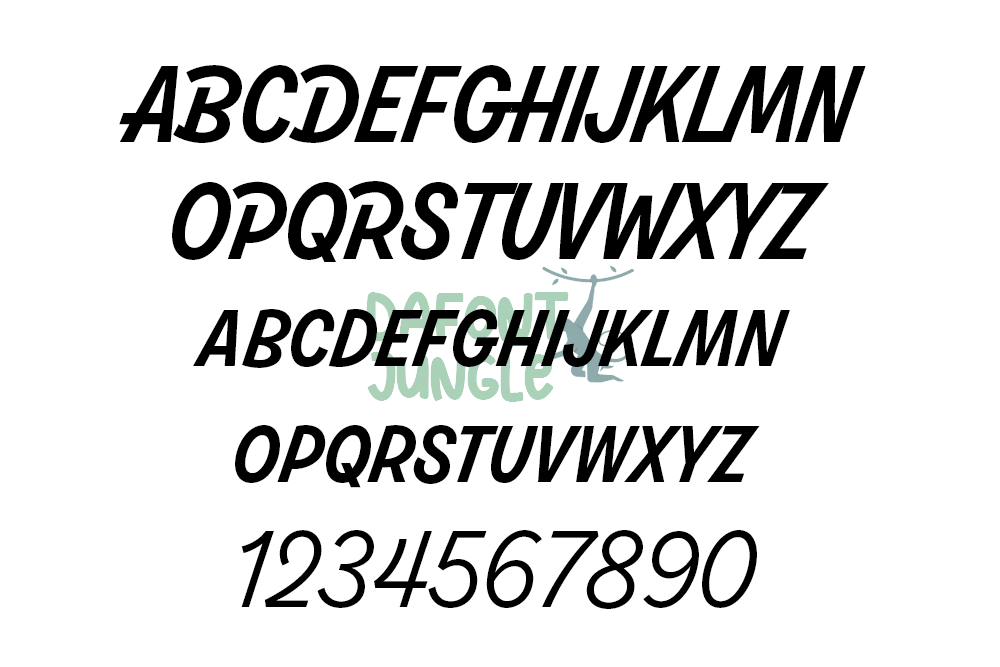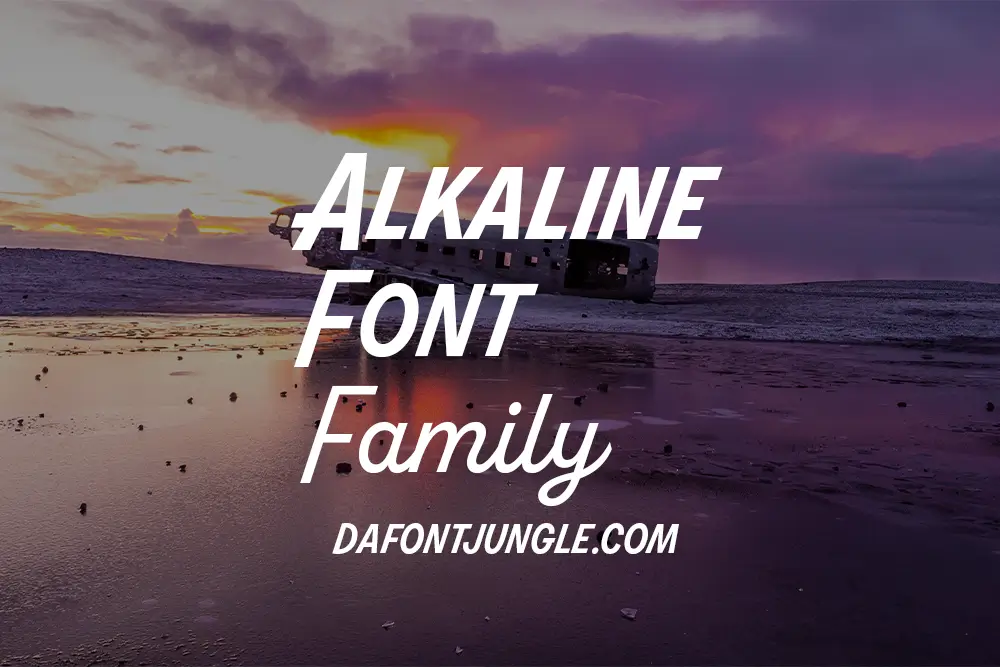
Alkaline – Functional and Playful Sans Serif Font Family
Alkaline is a modern sans serif font family from Fort Foundry. It combines clean structure with playful character, making it perfect for branding, packaging, editorial layouts, and digital design. The typeface reflects Fort Foundry’s philosophy—create fonts that feel imaginative and purposeful at the same time.